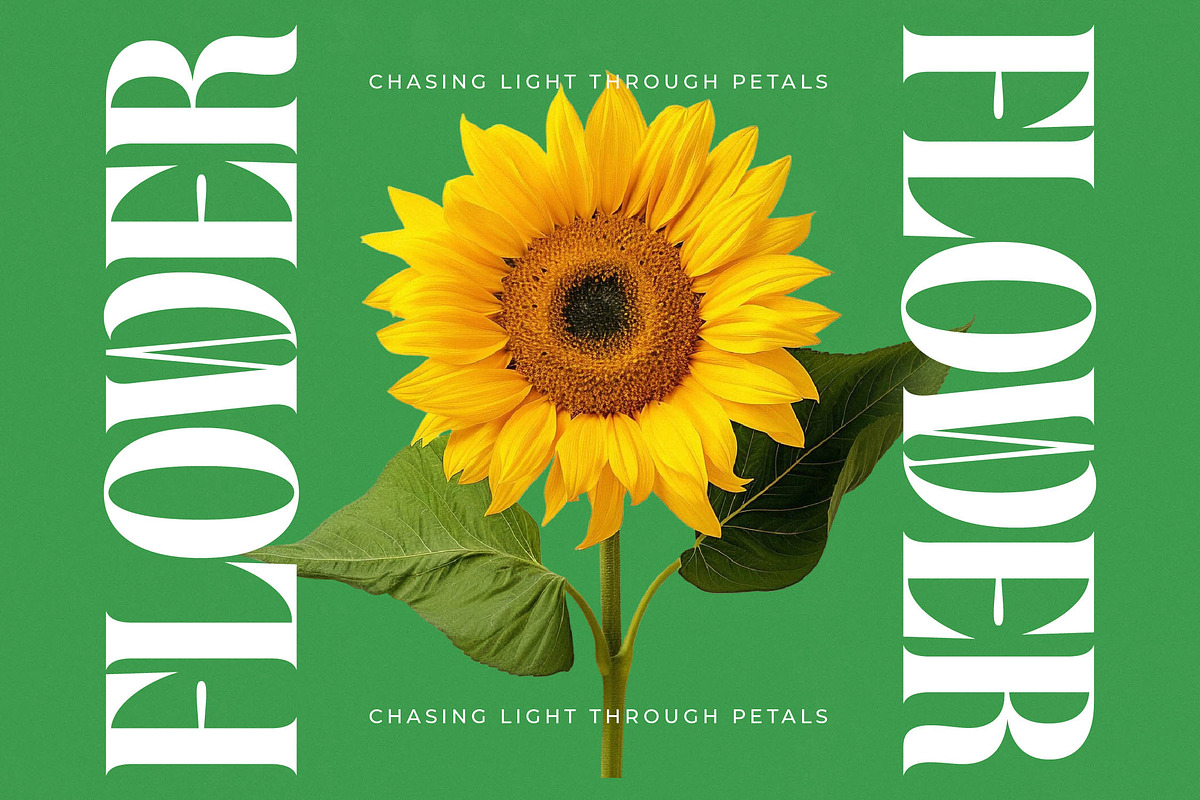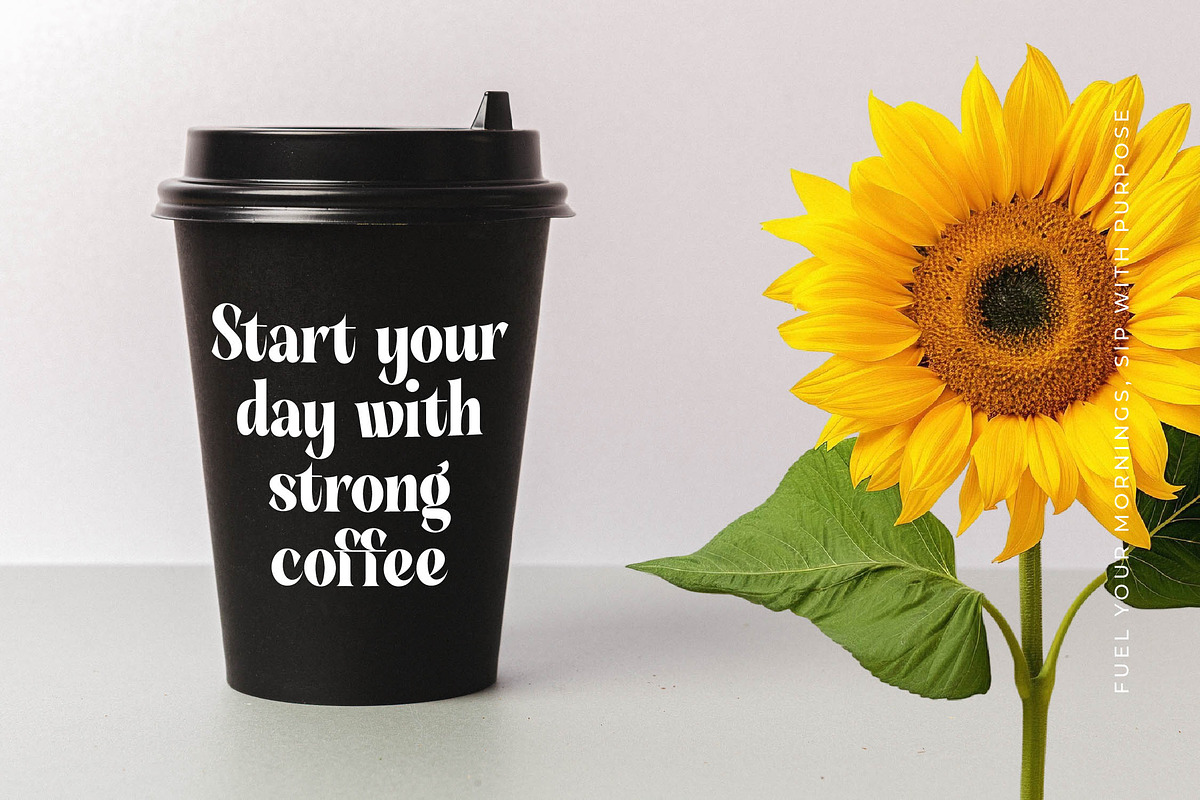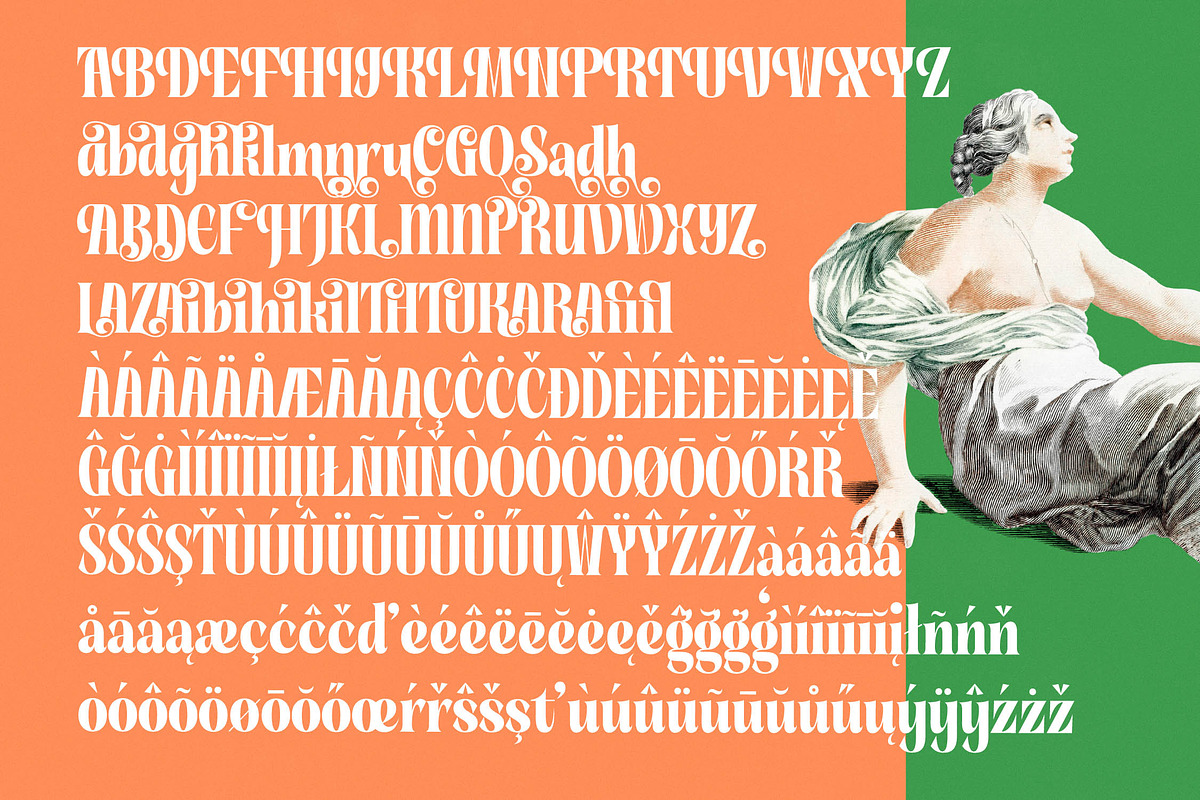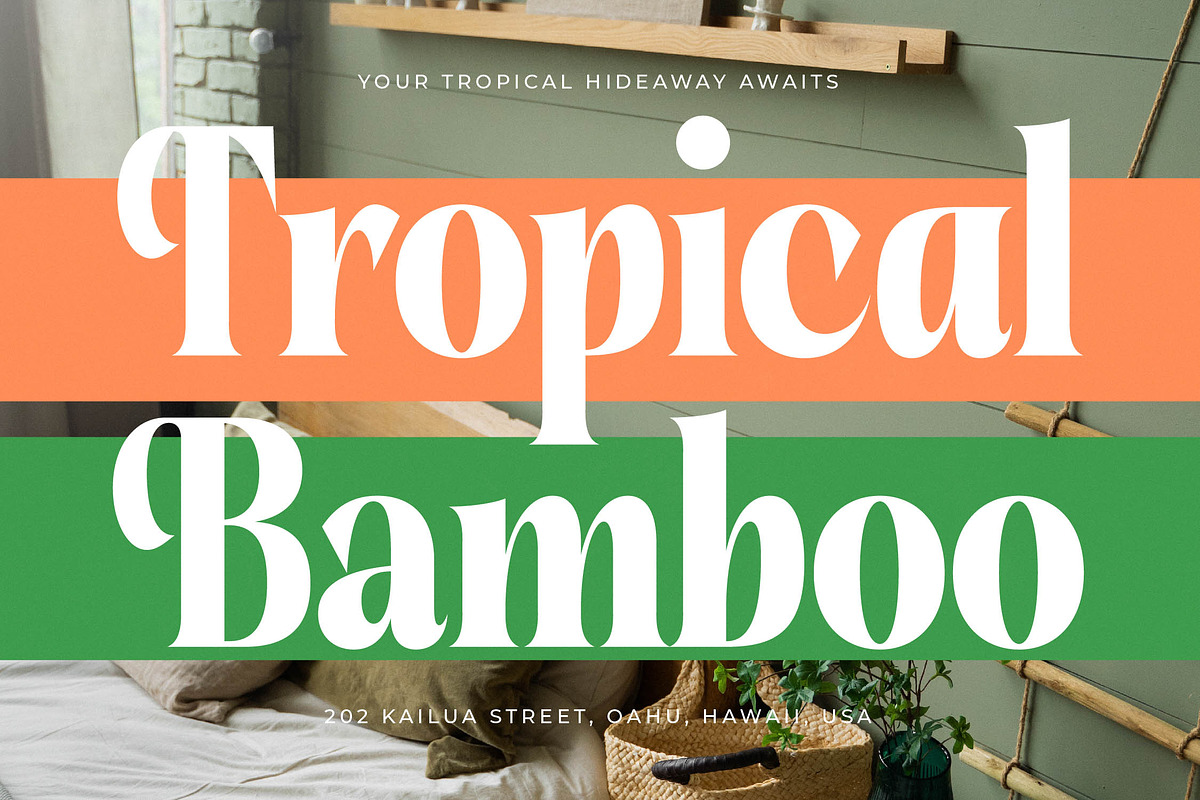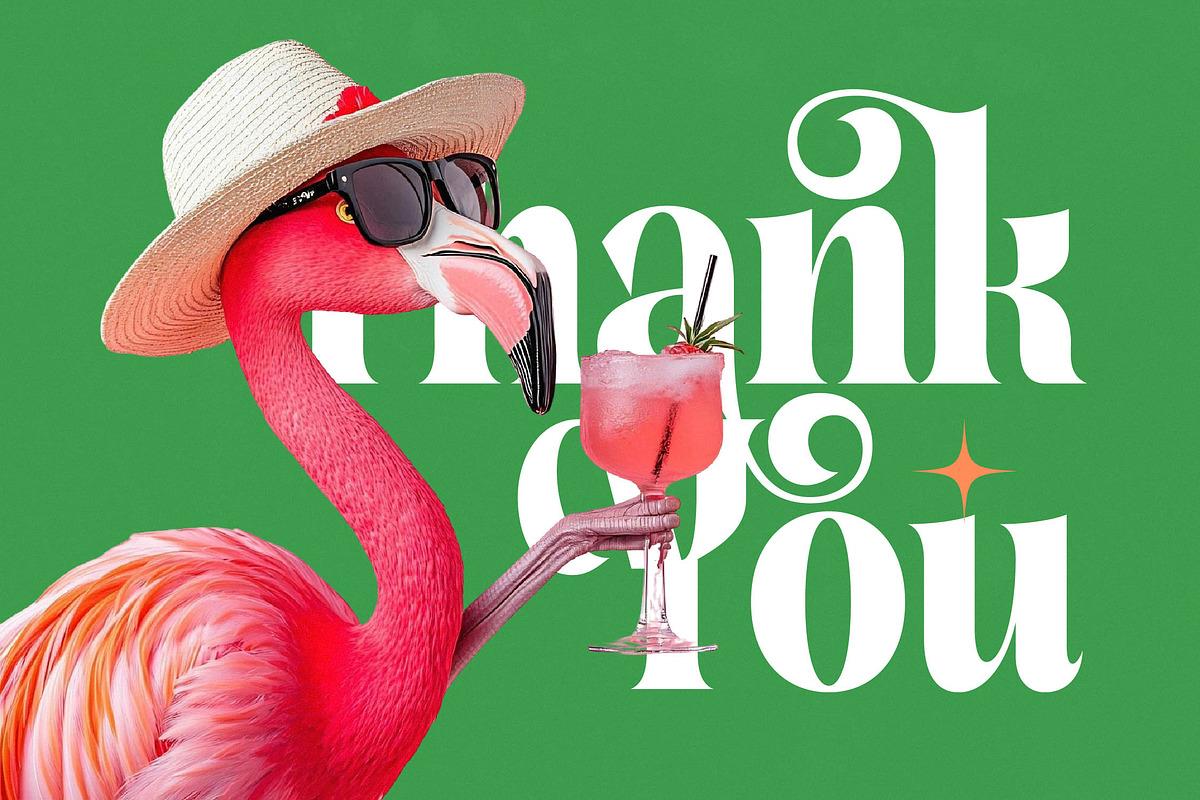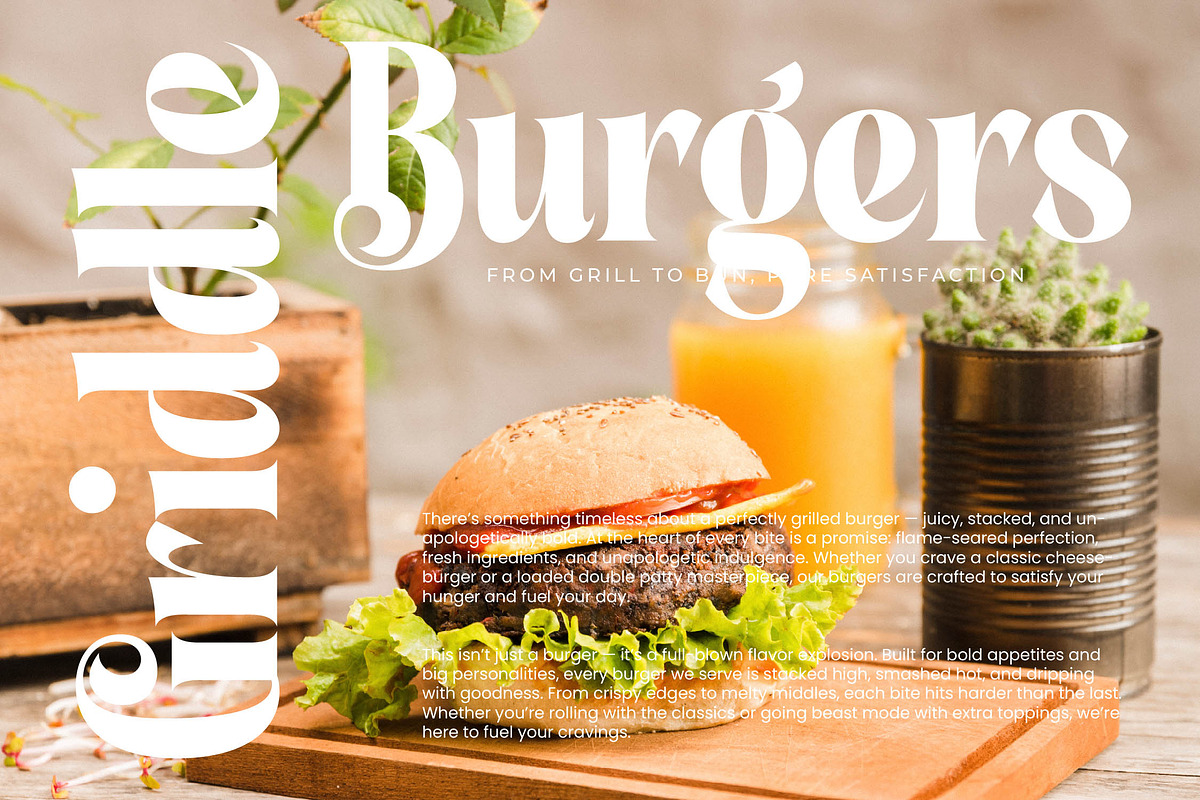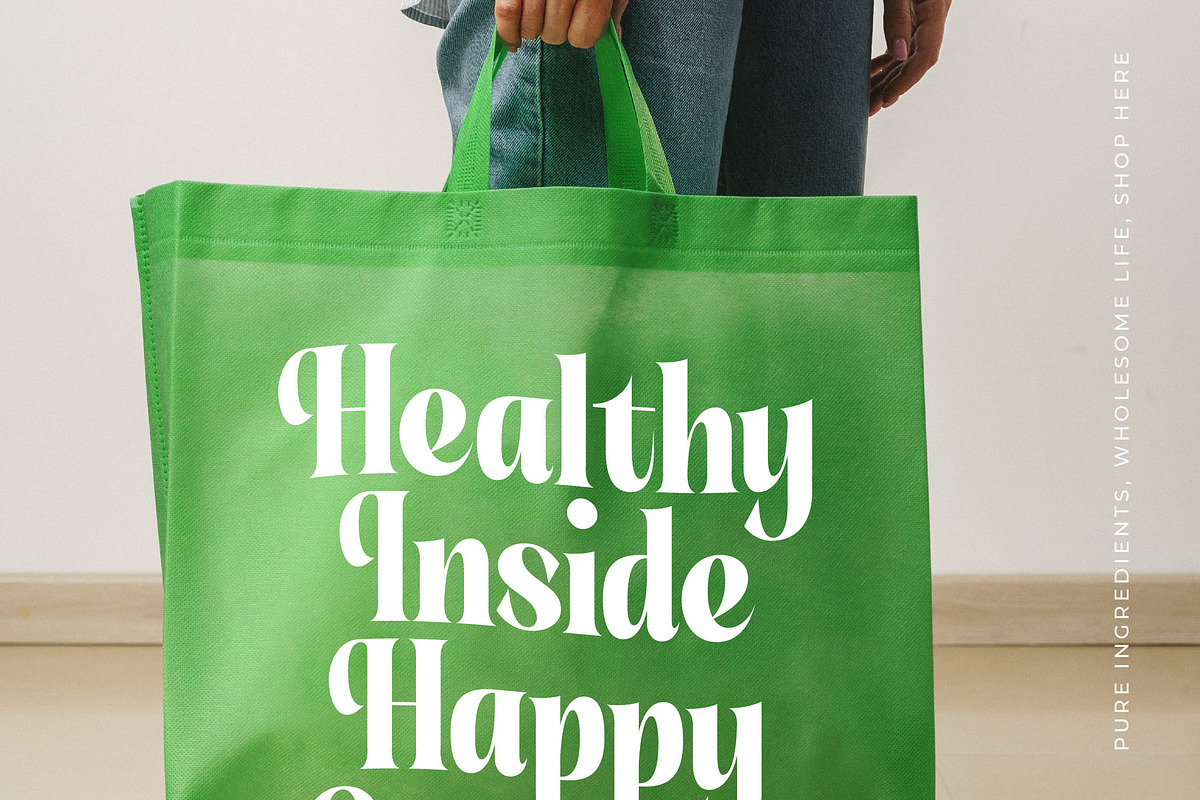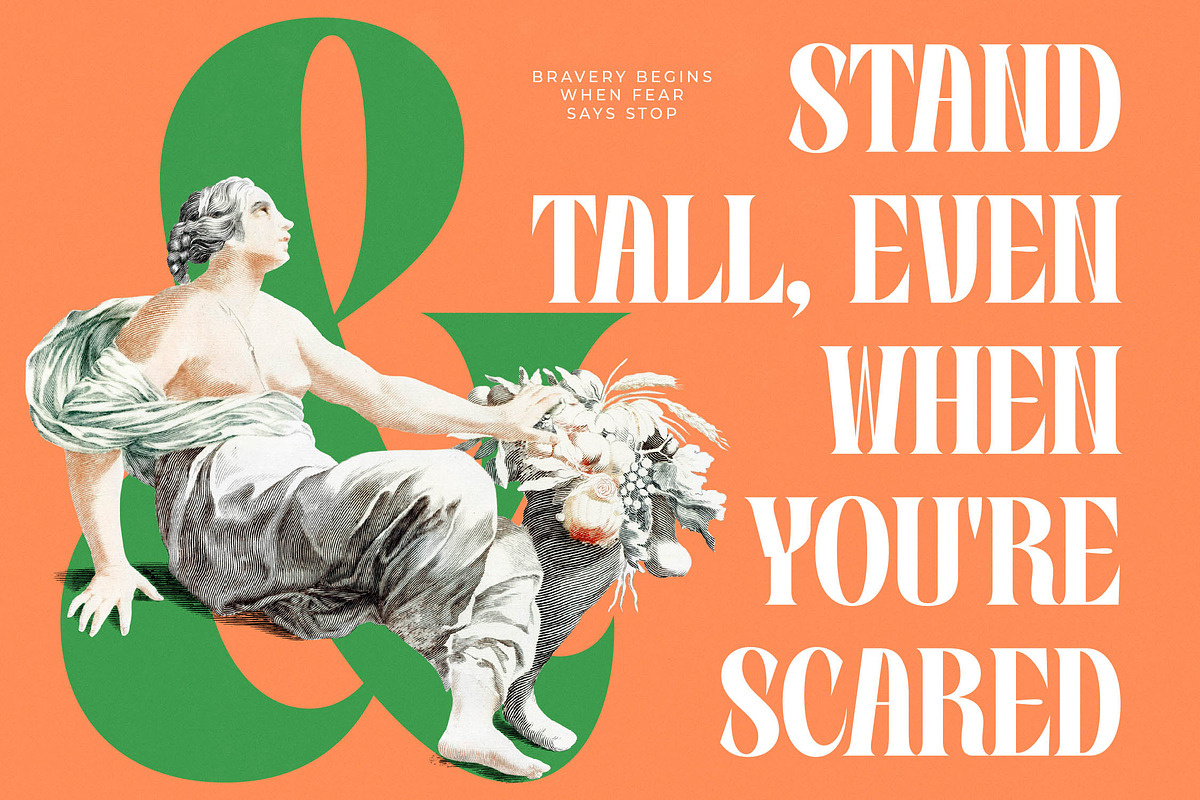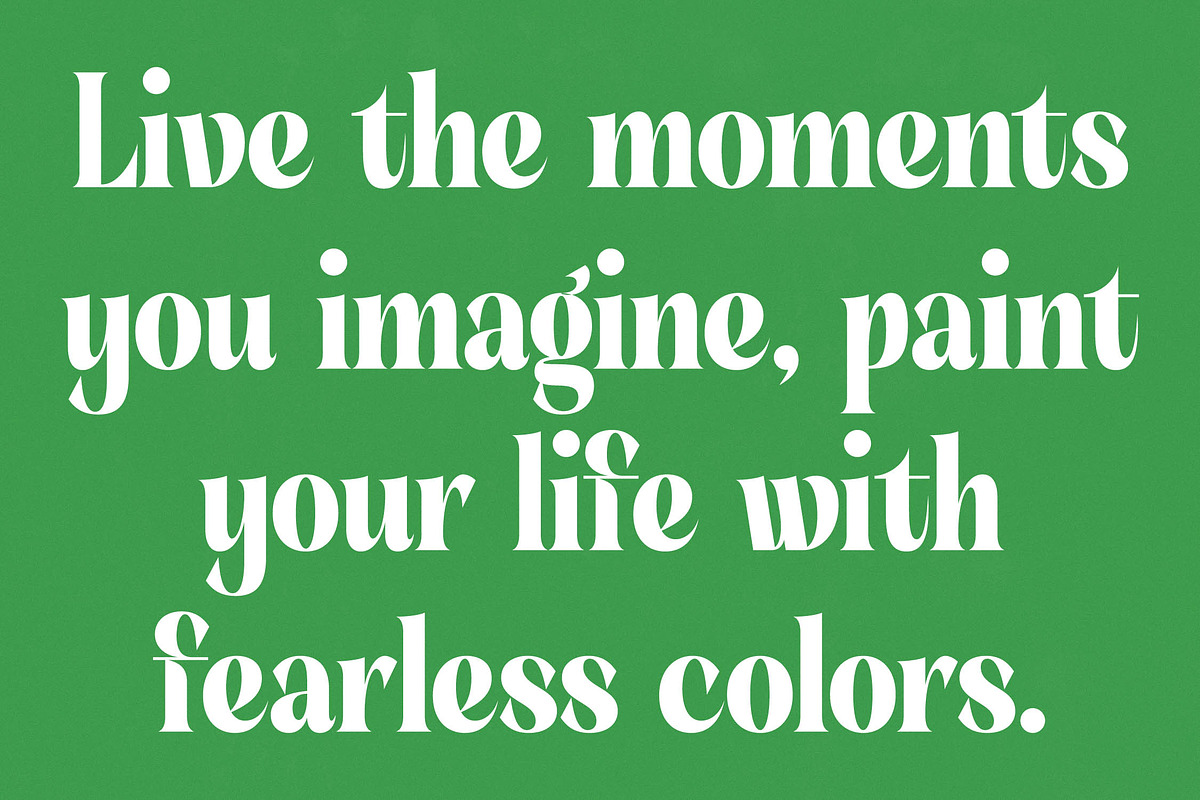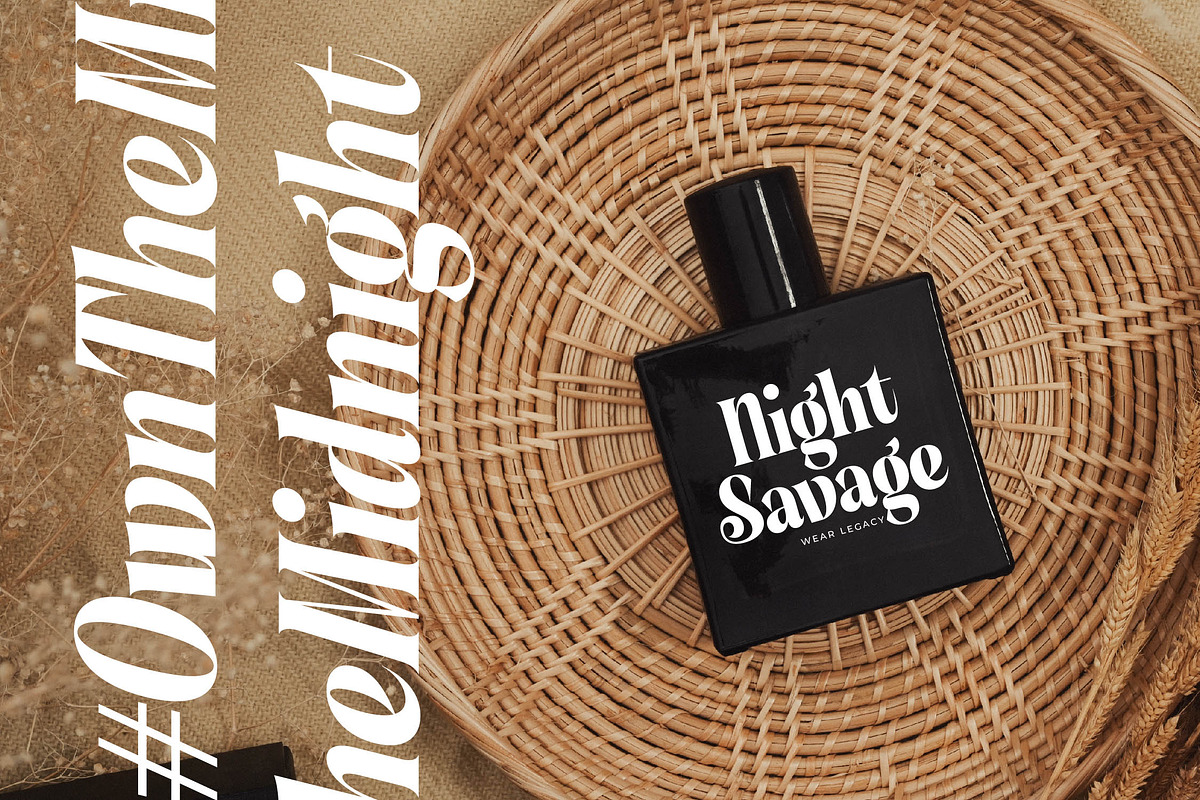
Sunday Mirage Modern Serif Font
Sunday Mirage is a breathtaking display of sophistication and whimsical charm, designed to elevate your visual storytelling to new heights of elegance. This font brings an effortless grace to any project, blending classic structure with a refreshing modern twist that feels both timeless and current.
Inspired by the sun-drenched days of summer and the surreal beauty of tropical retreats, this typeface captures a sense of vacation-like luxury. It draws from mid-century resort aesthetics and classical proportions to create a visual experience that is both nostalgic and forward-thinking, perfect for high-concept creative work.
With its striking silhouette, Sunday Mirage embodies a modern serif display style that commands attention through its luxury typography and high-contrast serif details. It is the ultimate editorial font for those who want to make a lasting branding impact with every character and curve.
Perfectly aligned with the current modern serif trend, this typeface answers the call for editorial display fonts that offer a unique point of view. It stands at the forefront of character-driven typography, providing designers with a versatile tool to meet the demands of today's sophisticated aesthetic landscape.
This font is exceptionally suited for high-end logo design, sophisticated branding identities, and polished editorial layouts. Its refined look makes it a perfect choice for premium packaging, romantic wedding stationery, and the fast-paced world of fashion advertising where style is everything.
Beyond its beauty, the typeface is a technical powerhouse featuring an extensive library of ligatures, alternates, and elegant swashes. With full multilingual support and a comprehensive set of international characters, it ensures your message reaches a global audience without any compromise on style.
- Ligature 14 Alternate 58